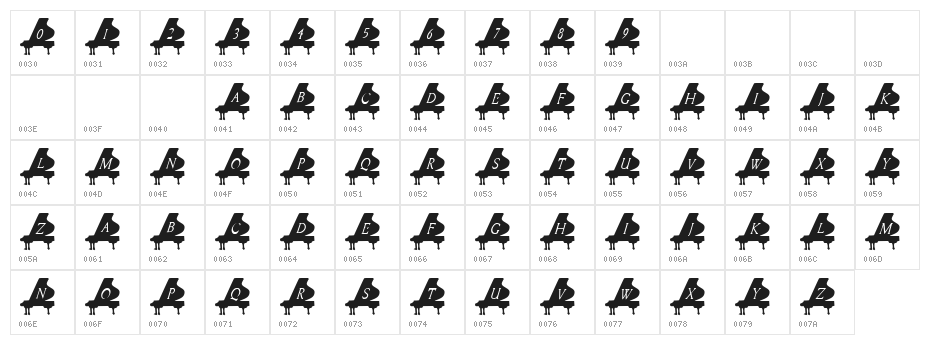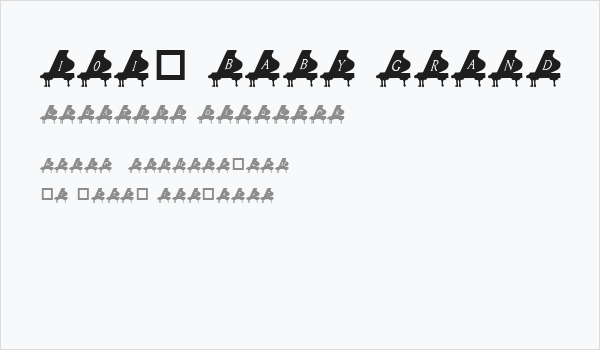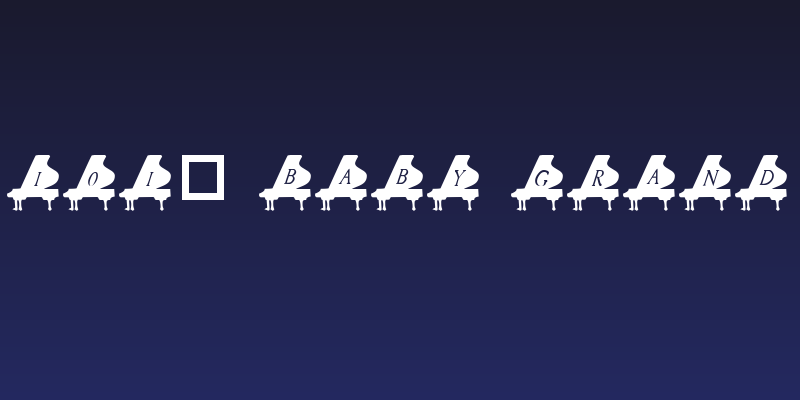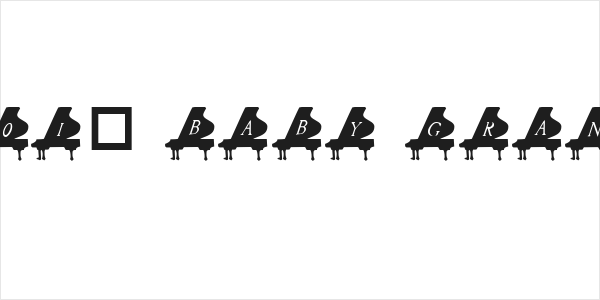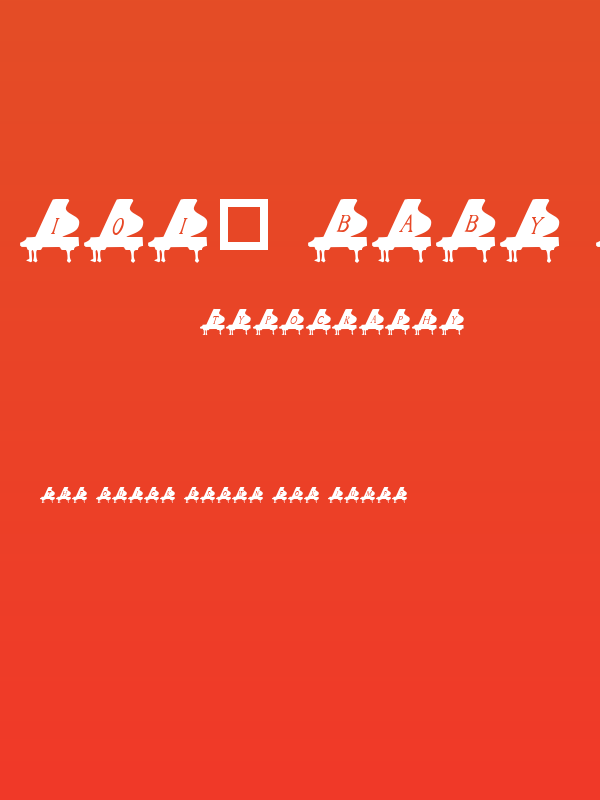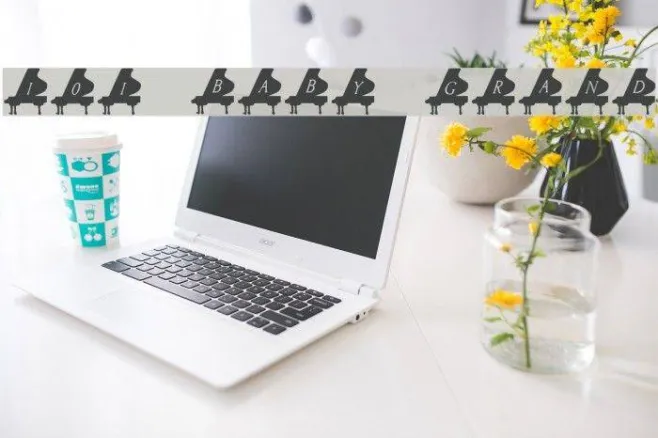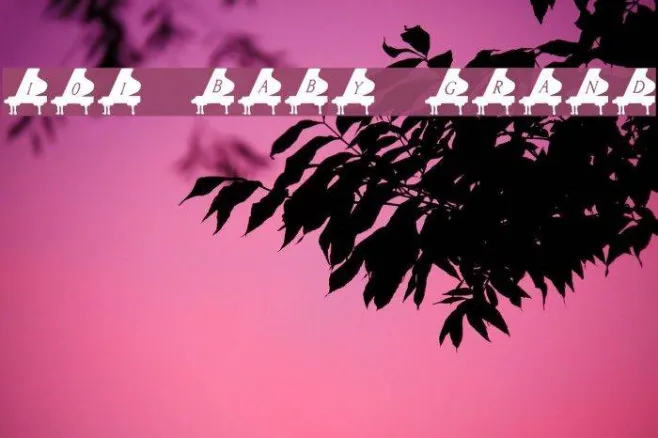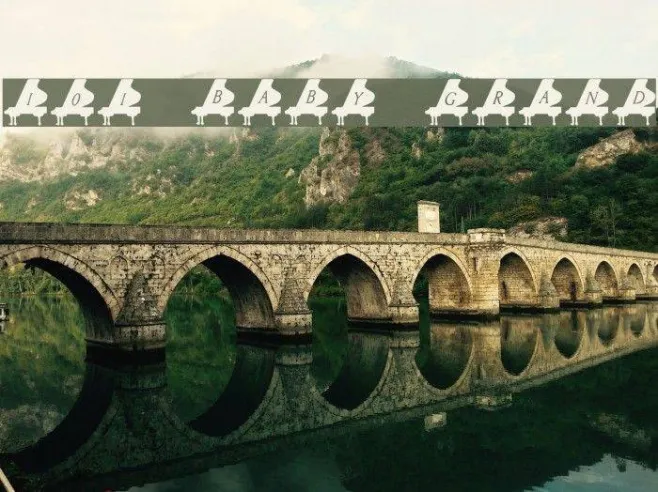
101! Baby Grand Font
101! Baby Grand Description
This unique and playful font features each character embedded within the silhouette of a grand piano, creating a distinctive and artistic appearance. The letters and numbers are bold and easily recognizable, yet they maintain a whimsical charm due to their integration with the piano shape. The font is highly decorative, making it ideal for projects that require a touch of creativity and musical flair. The characters are evenly spaced, ensuring readability despite their unconventional design. This font is perfect for music-related themes, adding a visual element that resonates with the concept of harmony and rhythm.
| Proposed Projects | Music event posters, album covers, music school brochures, creative invitations, and themed merchandise. |